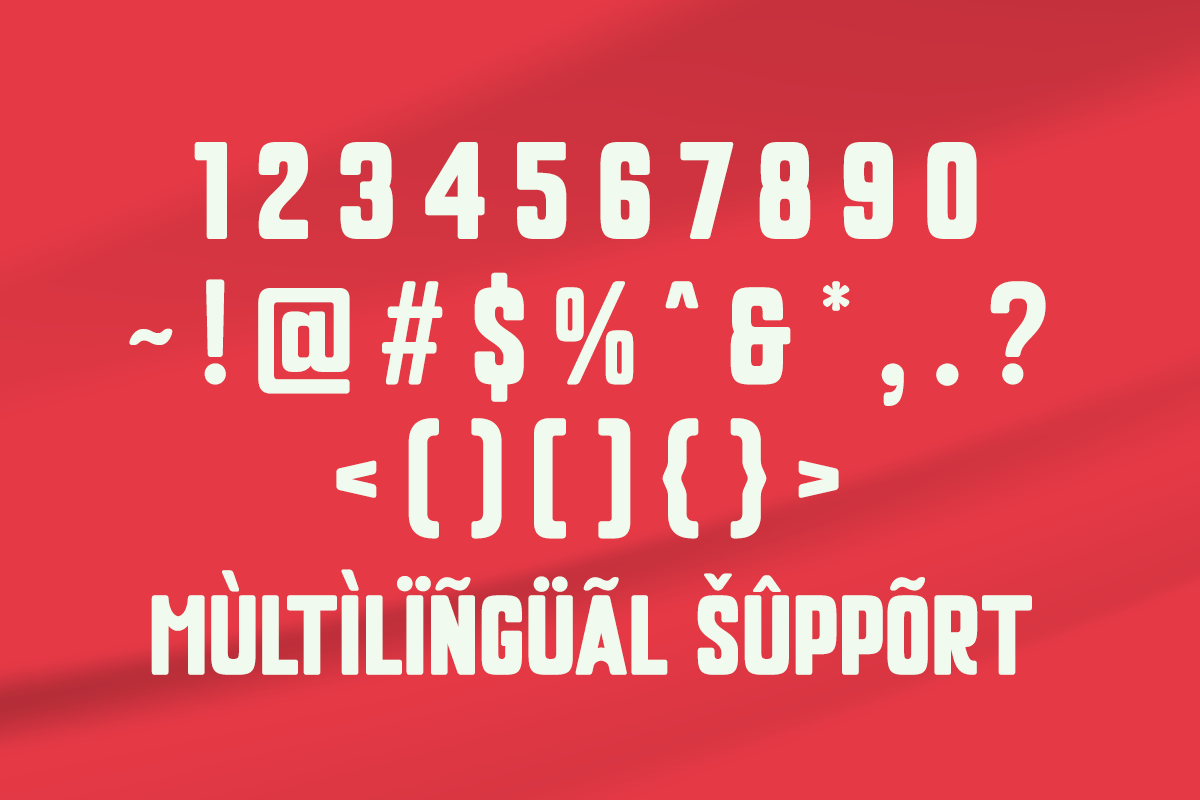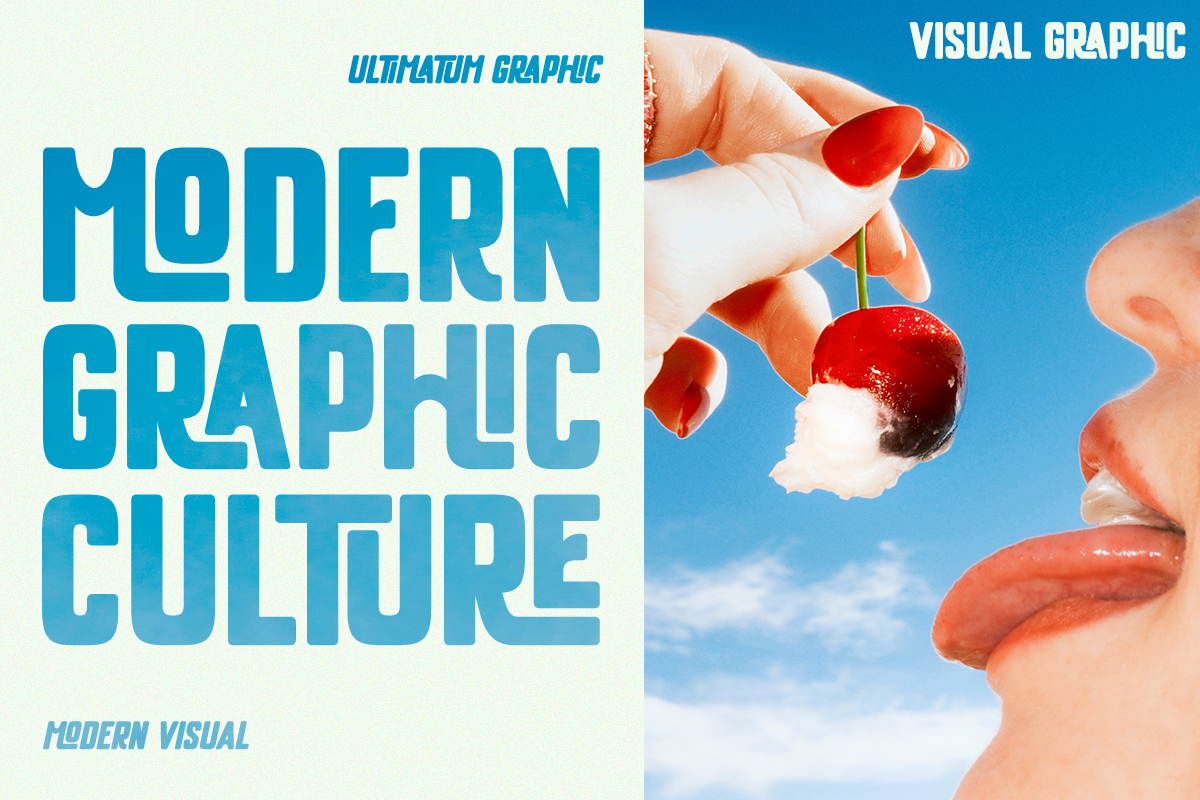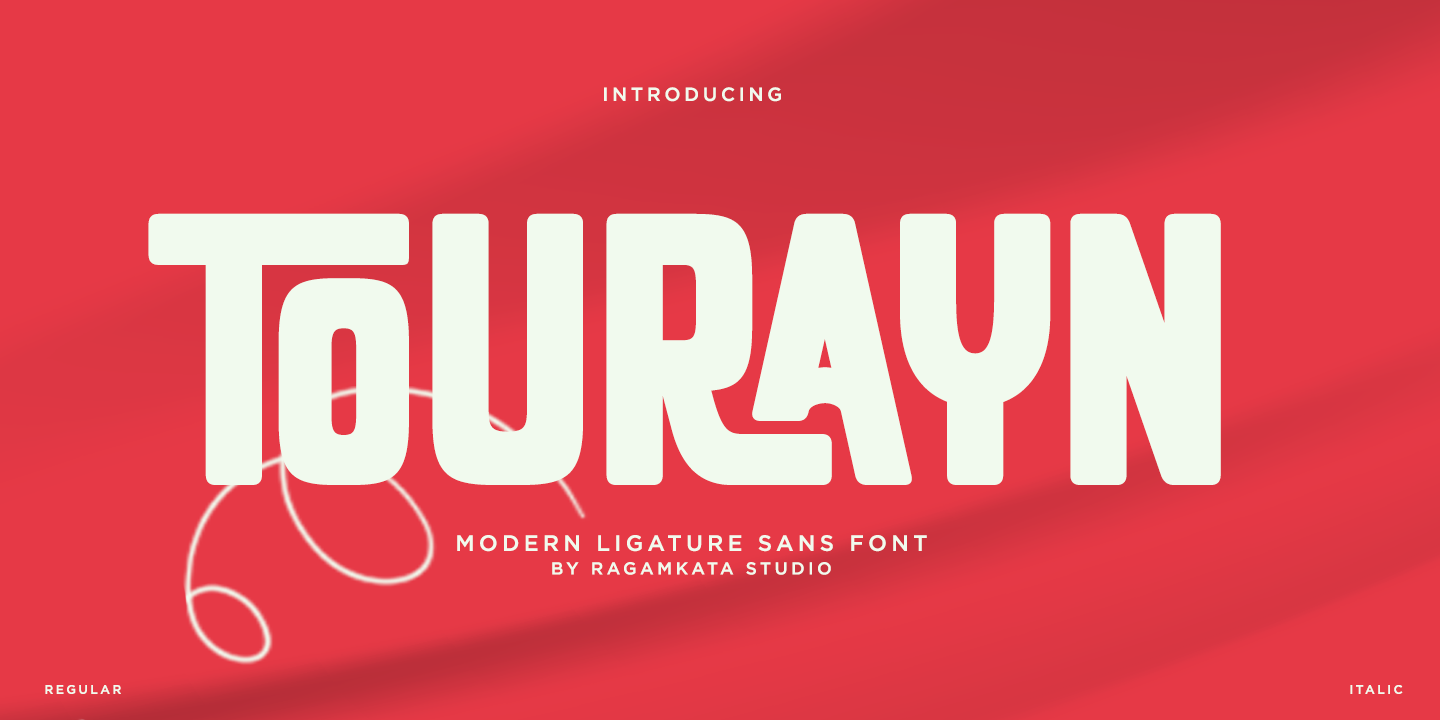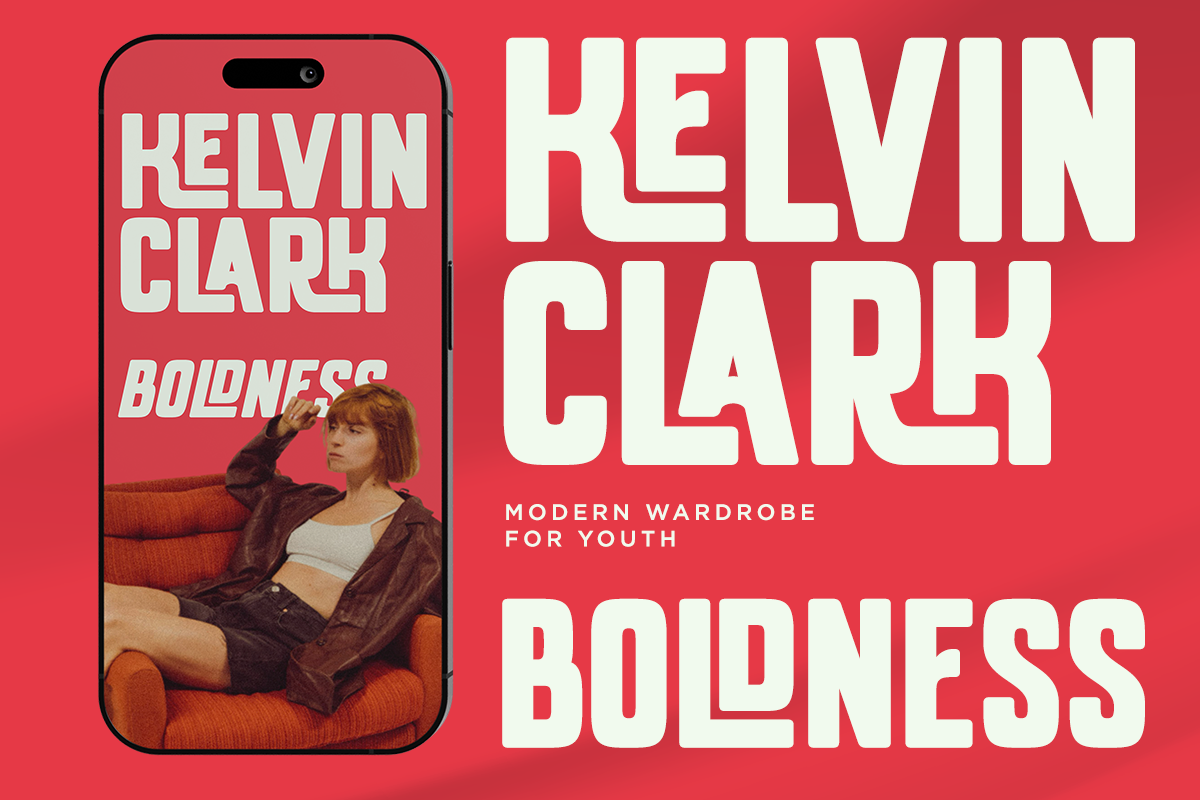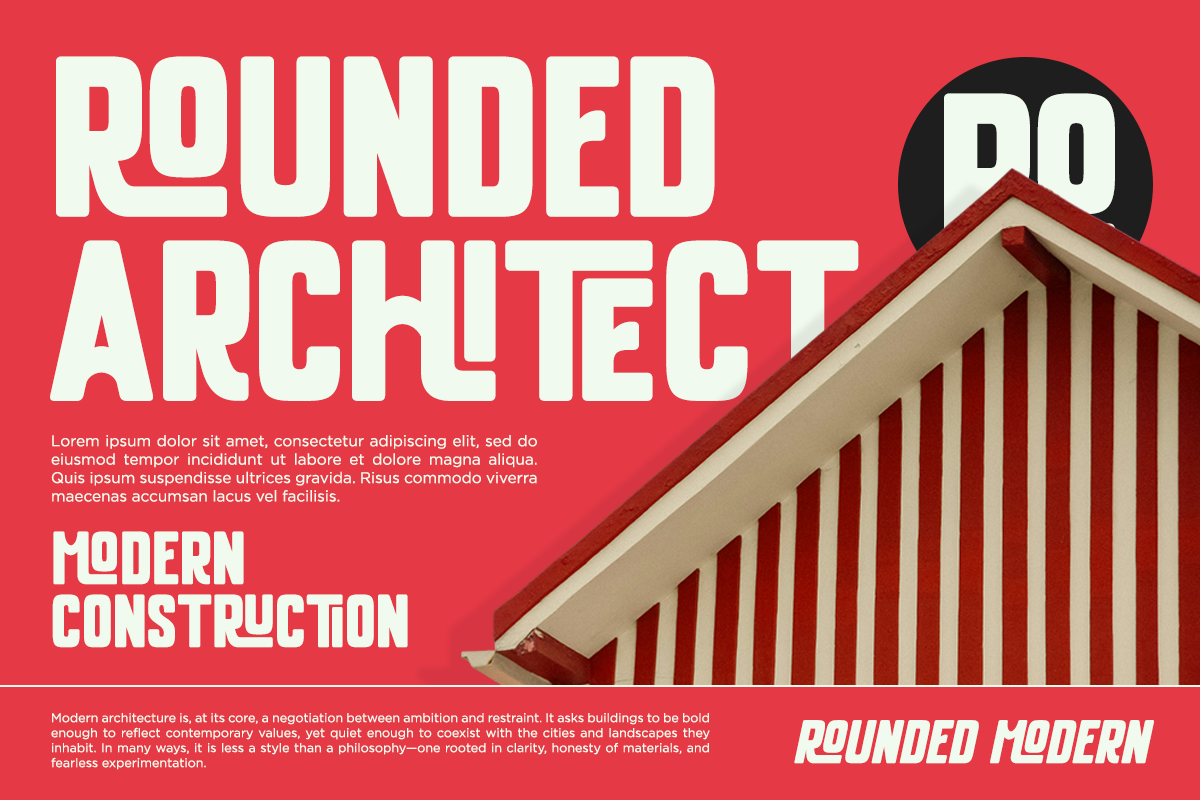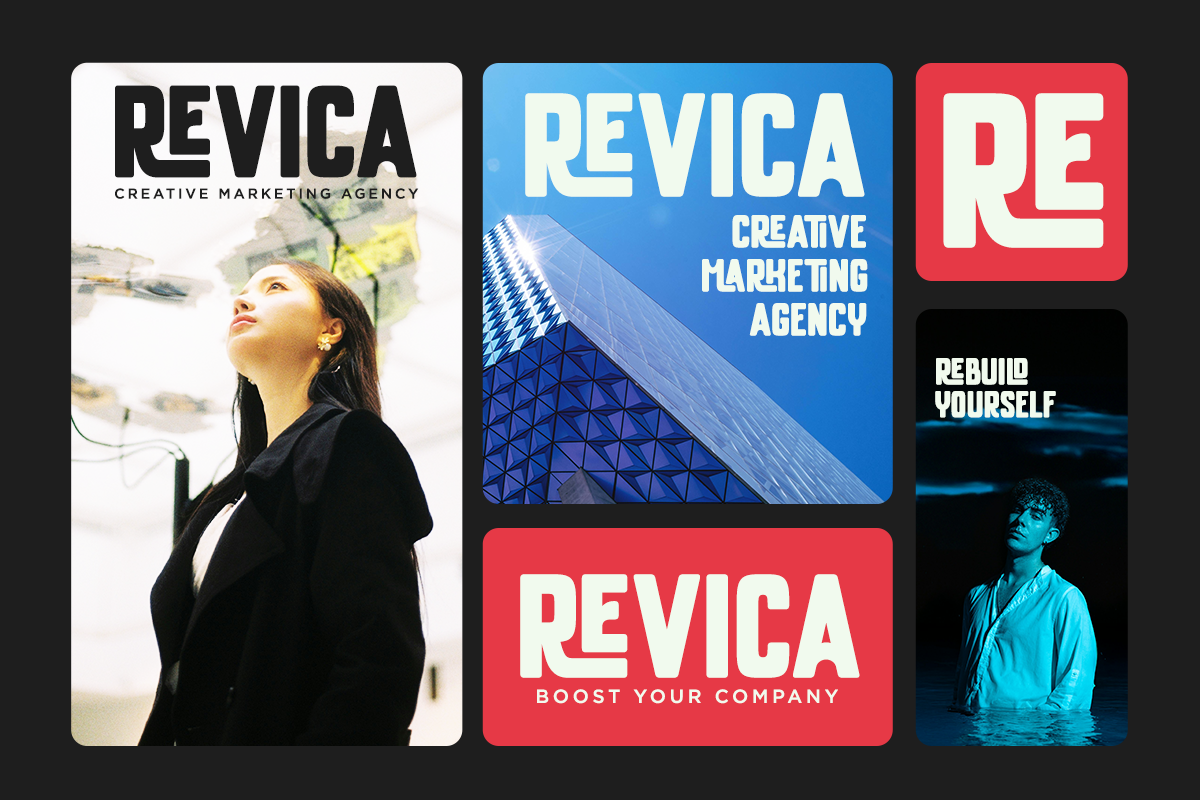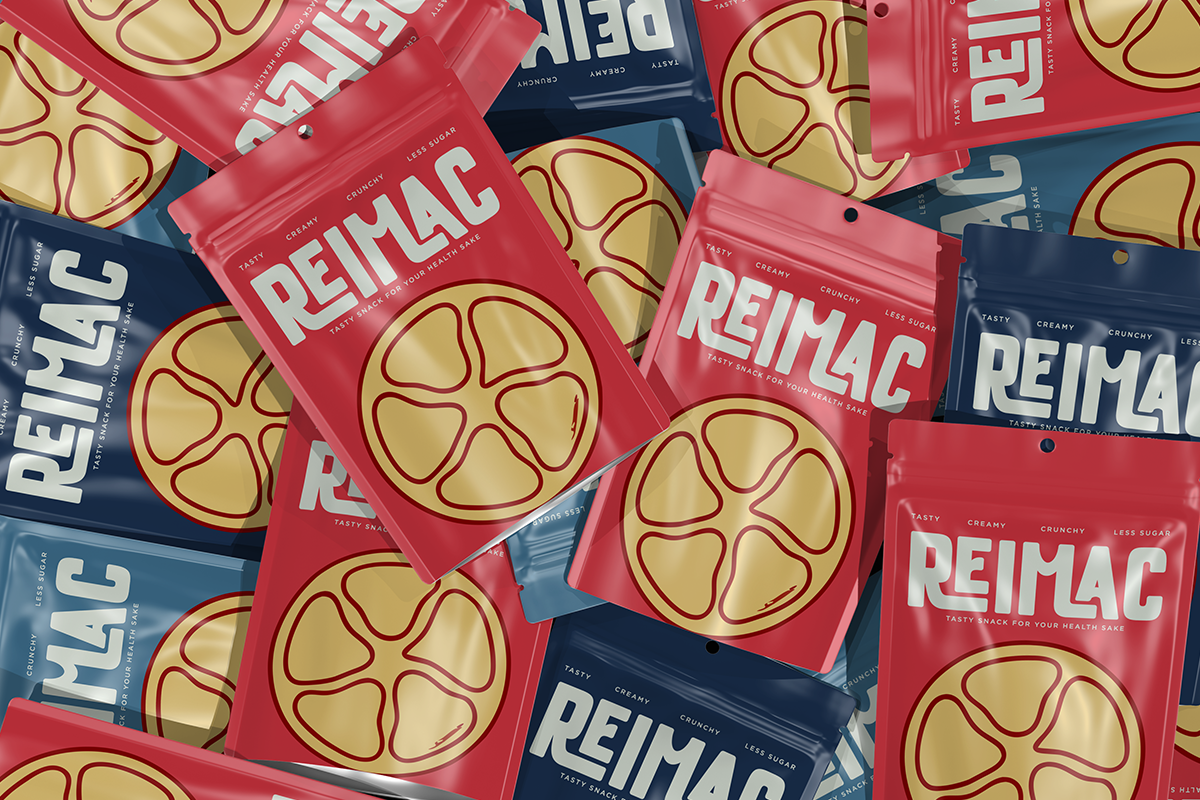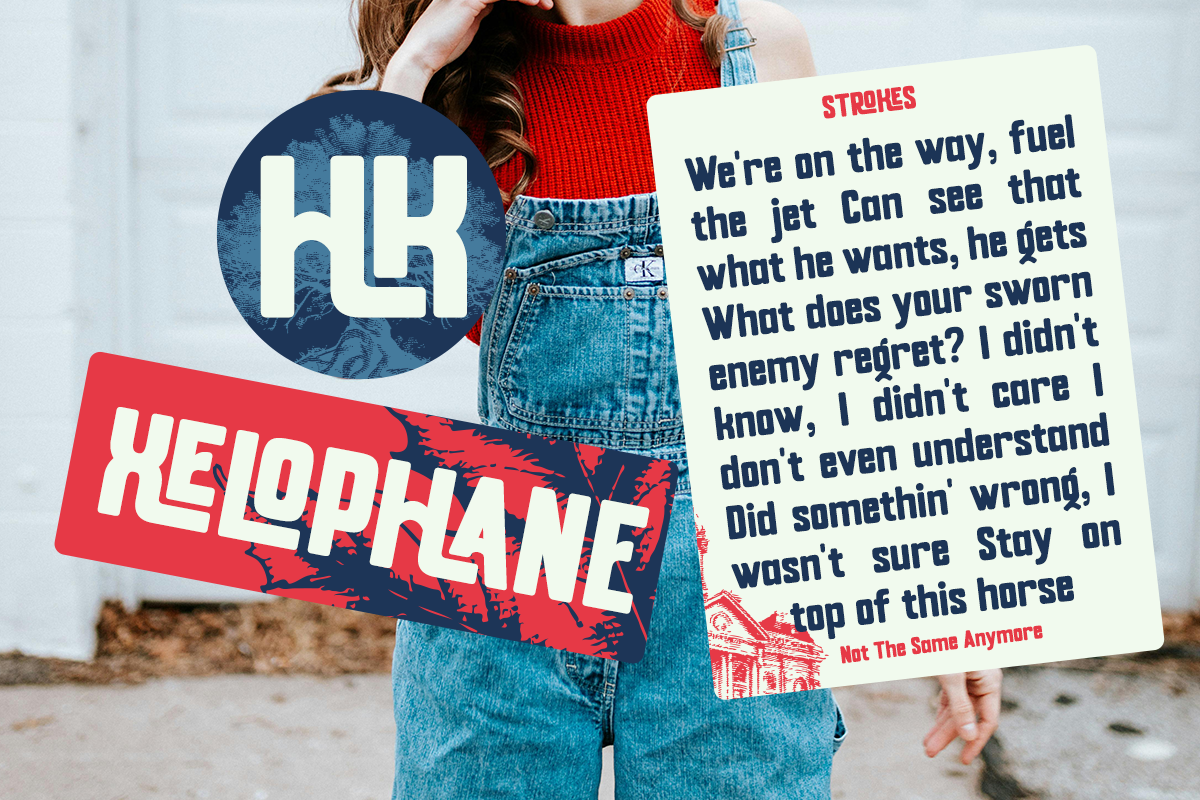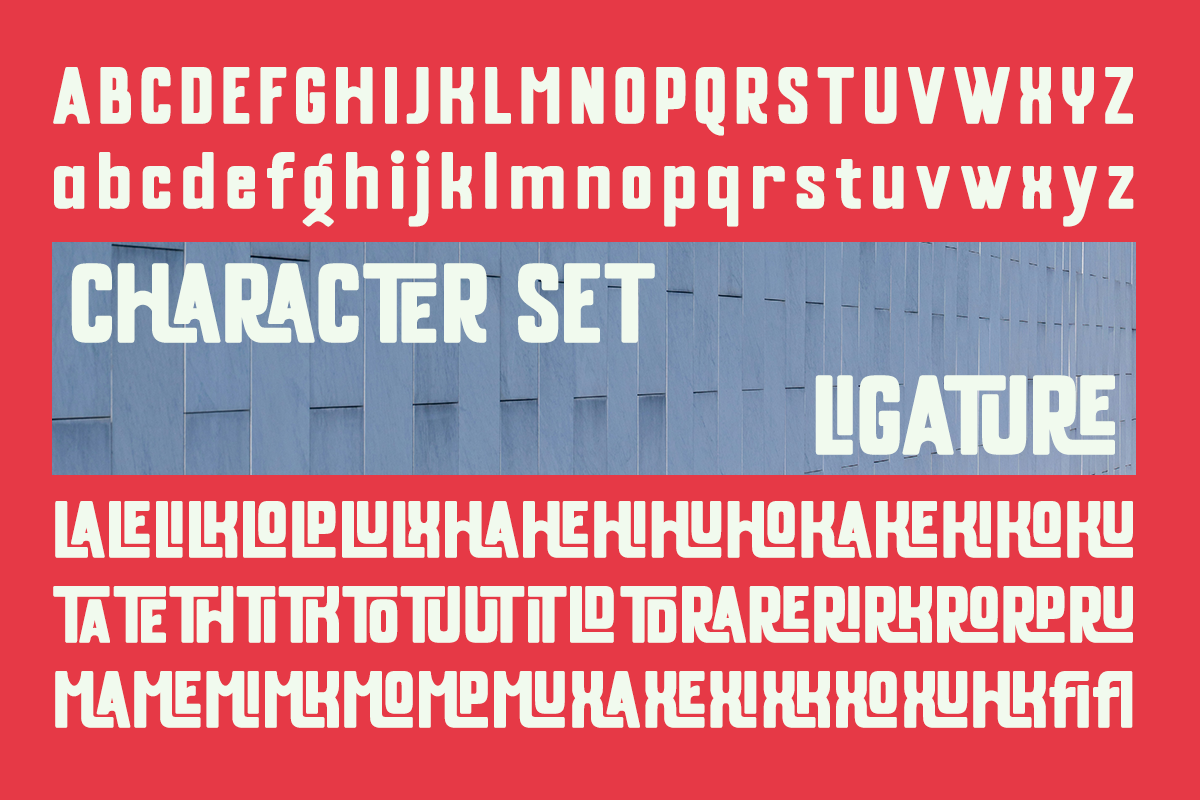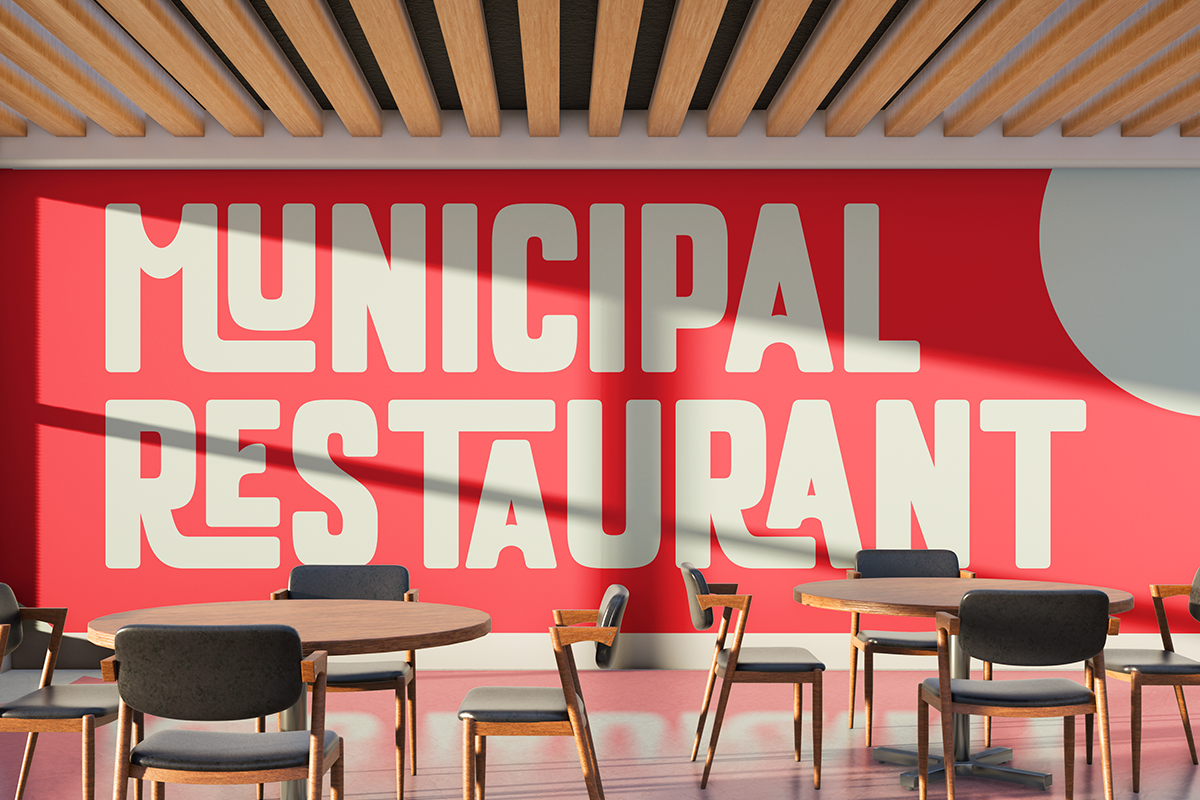
Tourayn - Condensed Ligature Font
Tourayn is a bold, expressive modern sans font designed with smooth curves, confident shapes, and eye-catching ligatures that bring a fresh, contemporary personality to any design. Its clean geometry paired with unique stylistic touches makes it stand out in both minimal and vibrant compositions. Perfect for Branding, Logo Design, Poster, Tittle, Headline, Packaging, Social Media, UI/UX, Merchandise, etc.
- Stylish Ligature Pack
- Number, and Symbol